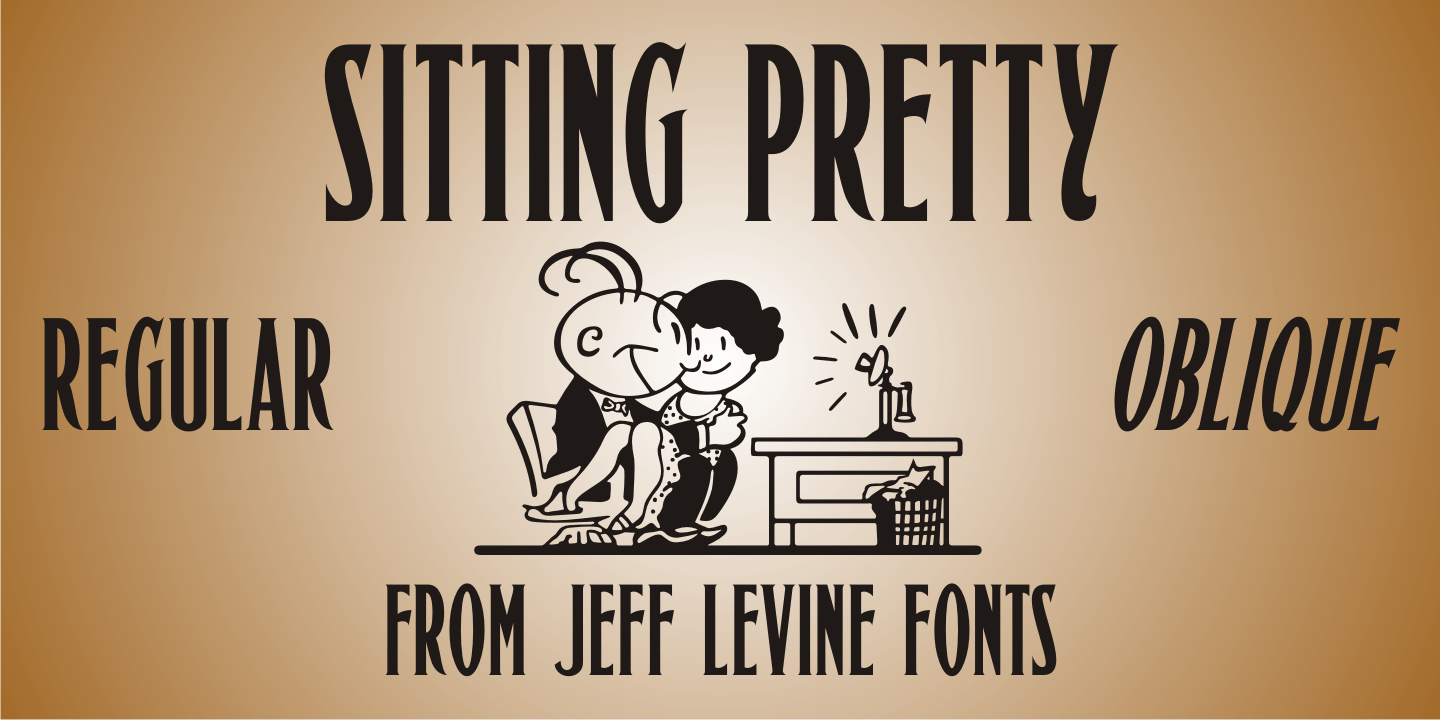
Sitting Pretty
Sheet music for the 1923 tune 'I'm Sitting Pretty (In A Pretty Little City)' had the main part of the title hand lettered in an Art Nouveau condensed Roman type design which became the inspiration for Sitting Pretty JNL.
The typeface is available in both regular and oblique versions.
Sitting Pretty includes 213 glyphs.